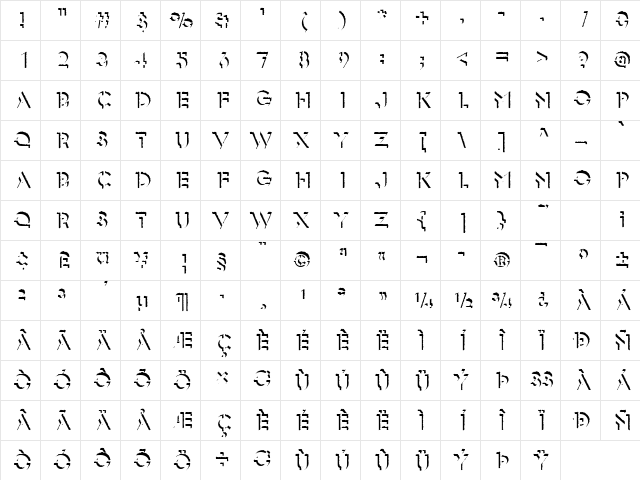
Complete GlaserSteOnlShaD Regular glyph index. Displaying only characters natively supported by GlaserSteOnlShaD Regular font.
GlaserSteOnlShaD is a composed and adaptable typeface that performs quietly and consistently across a wide range of design contexts.